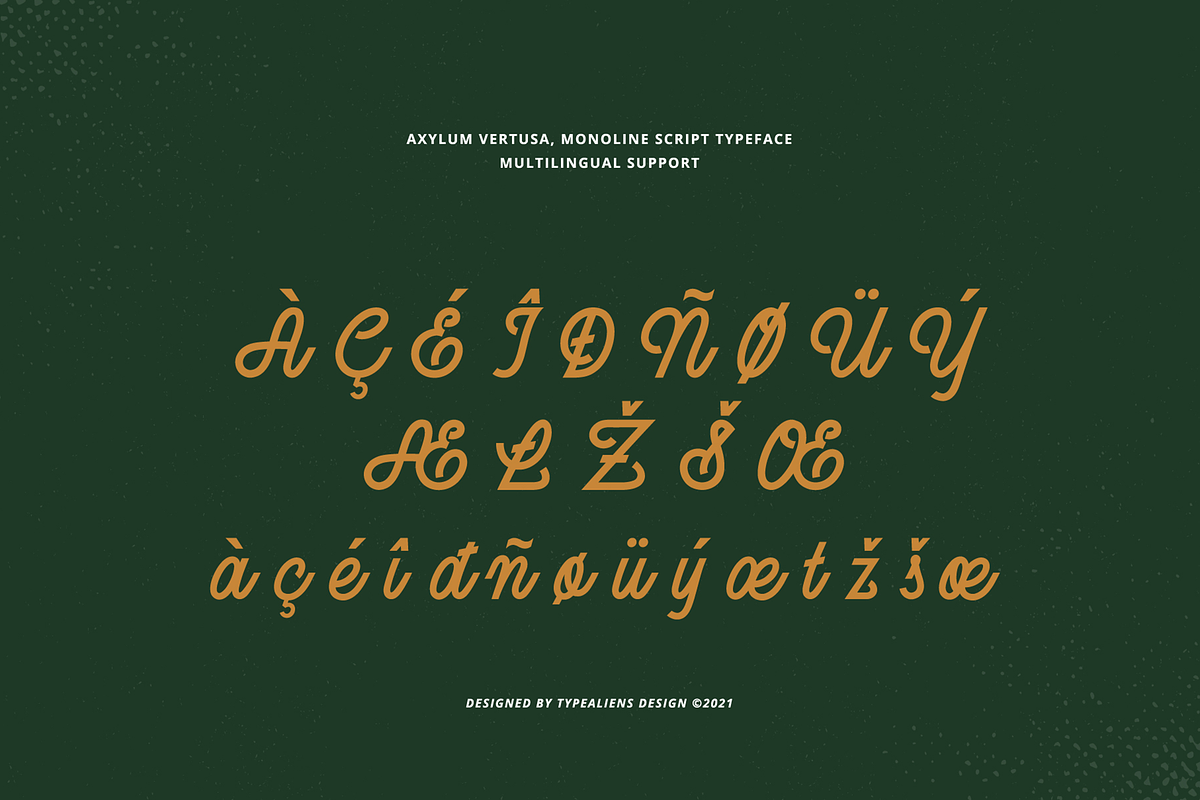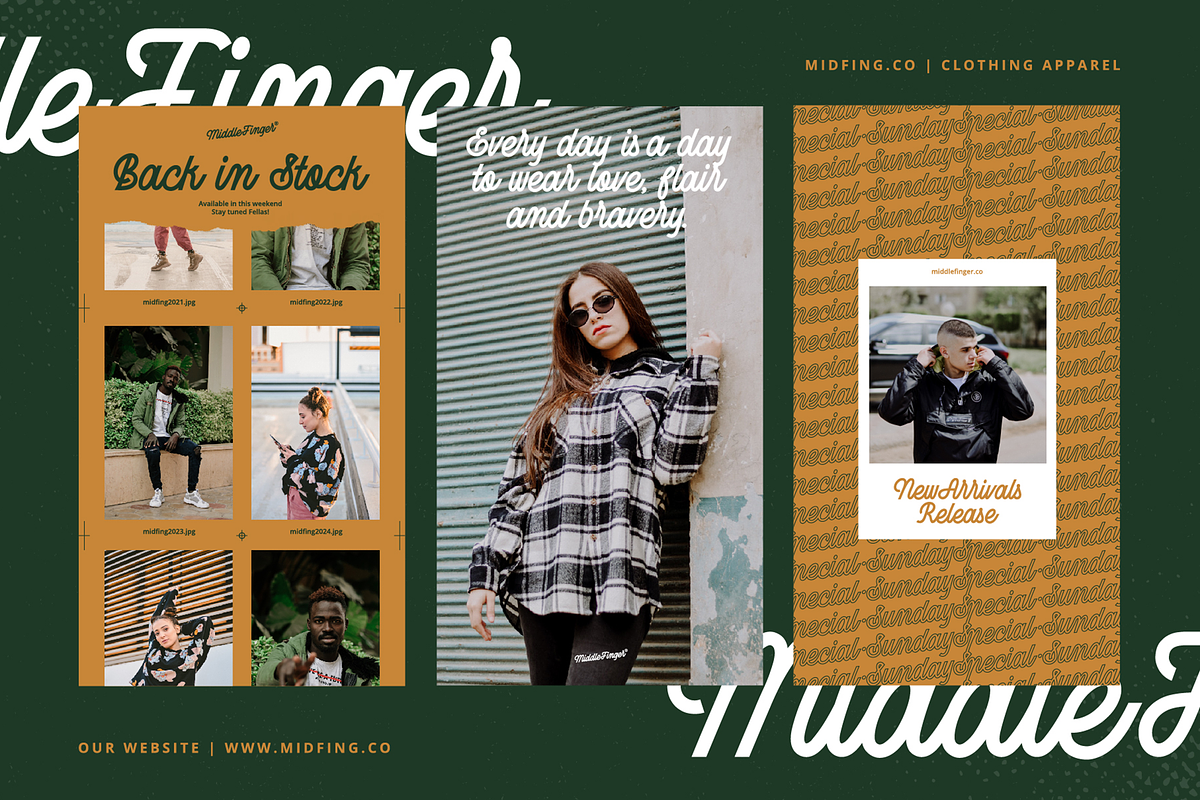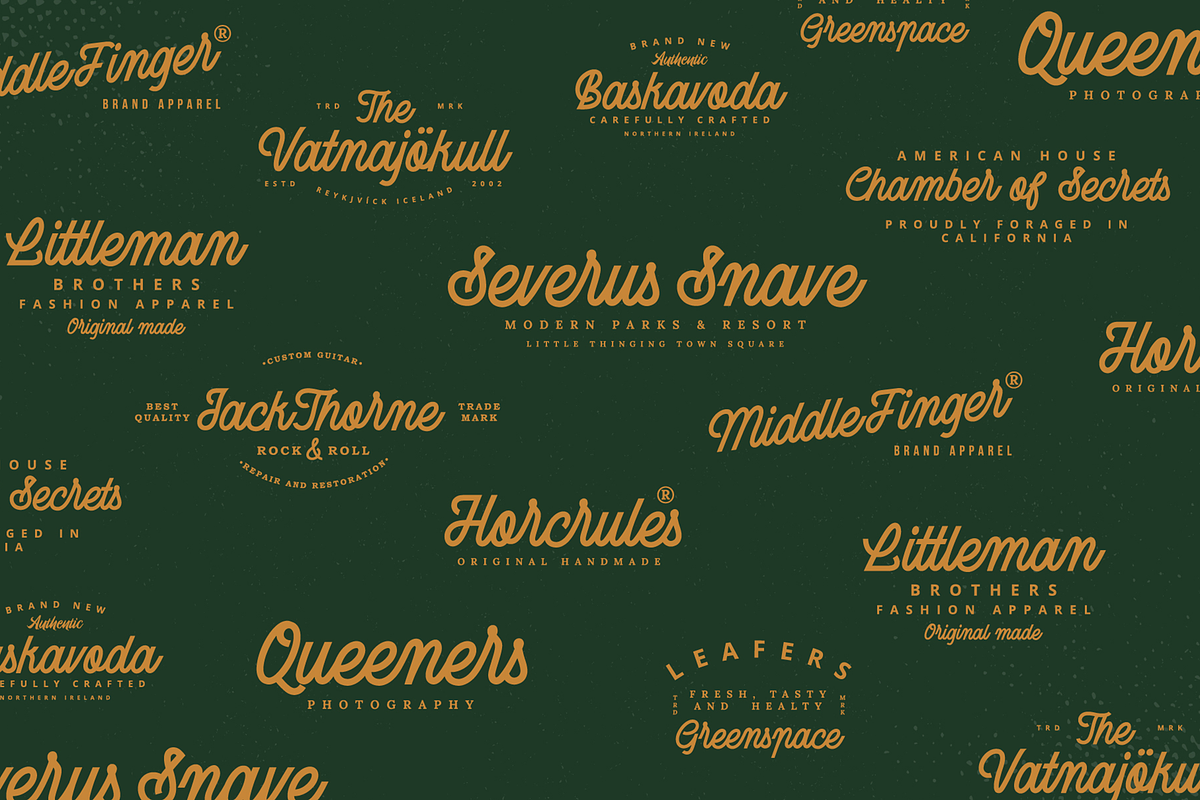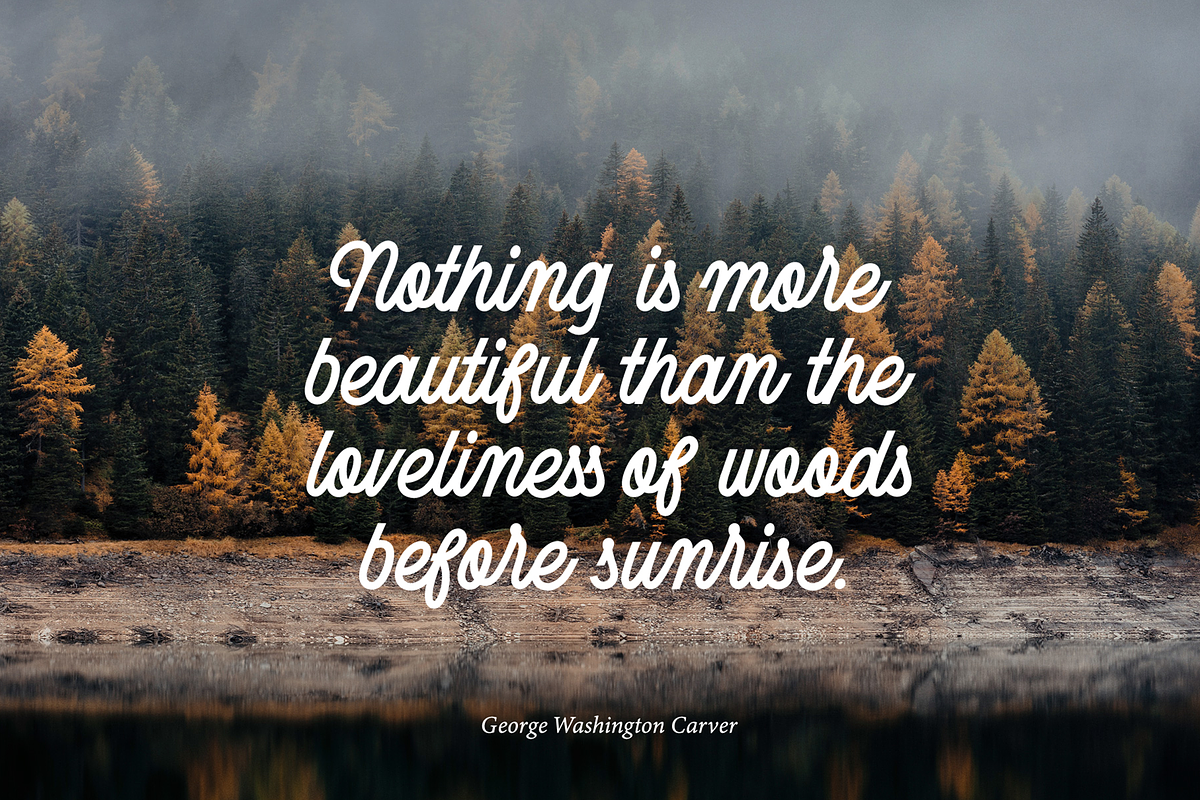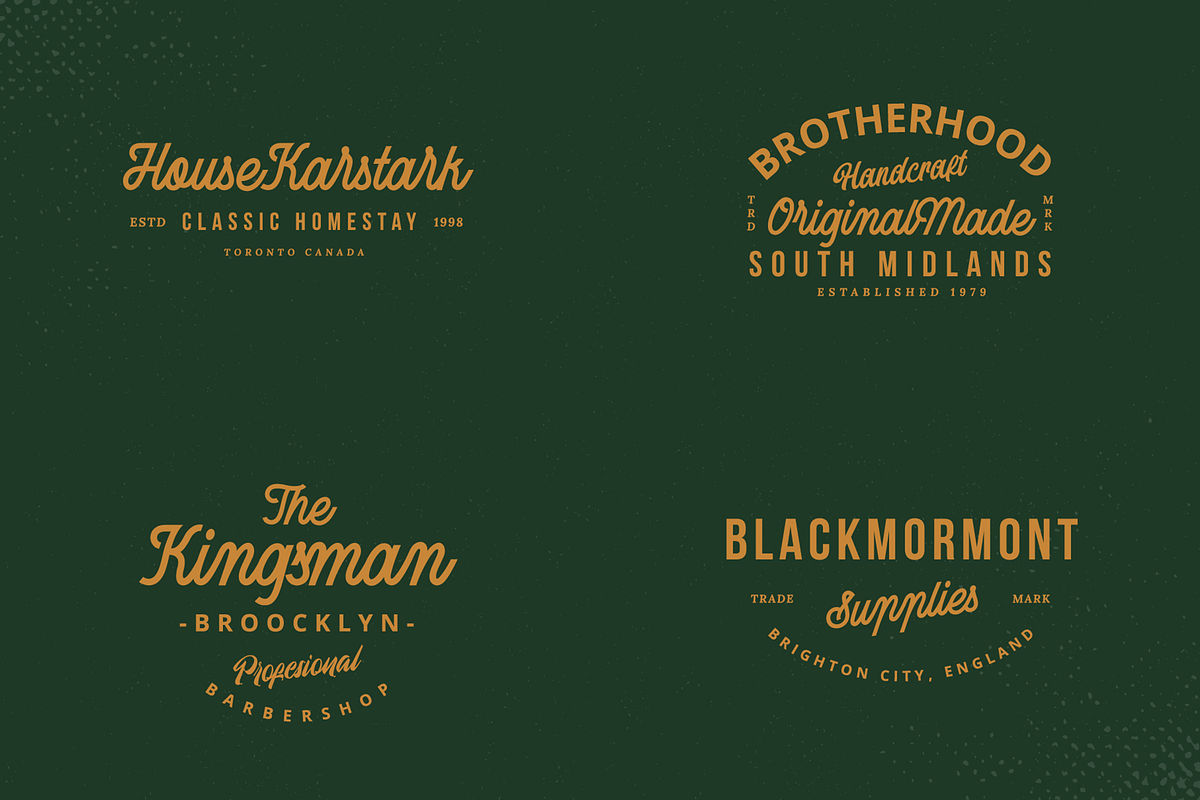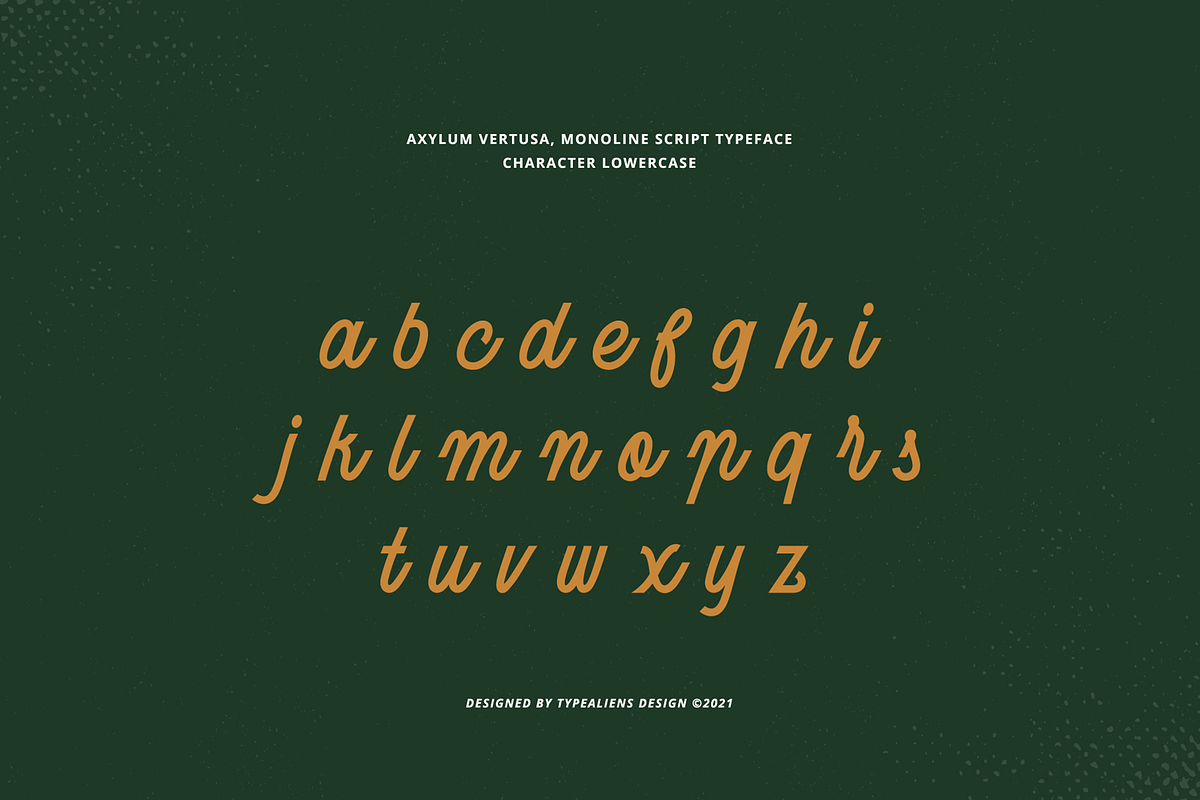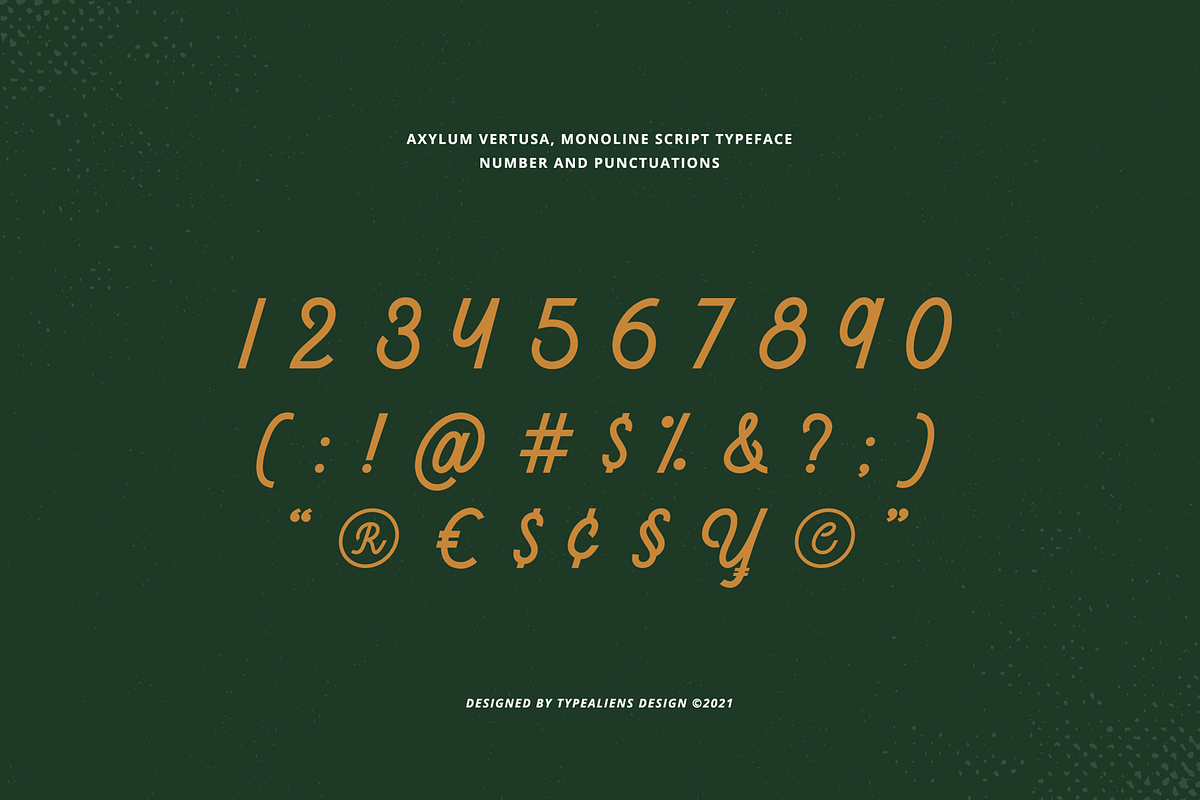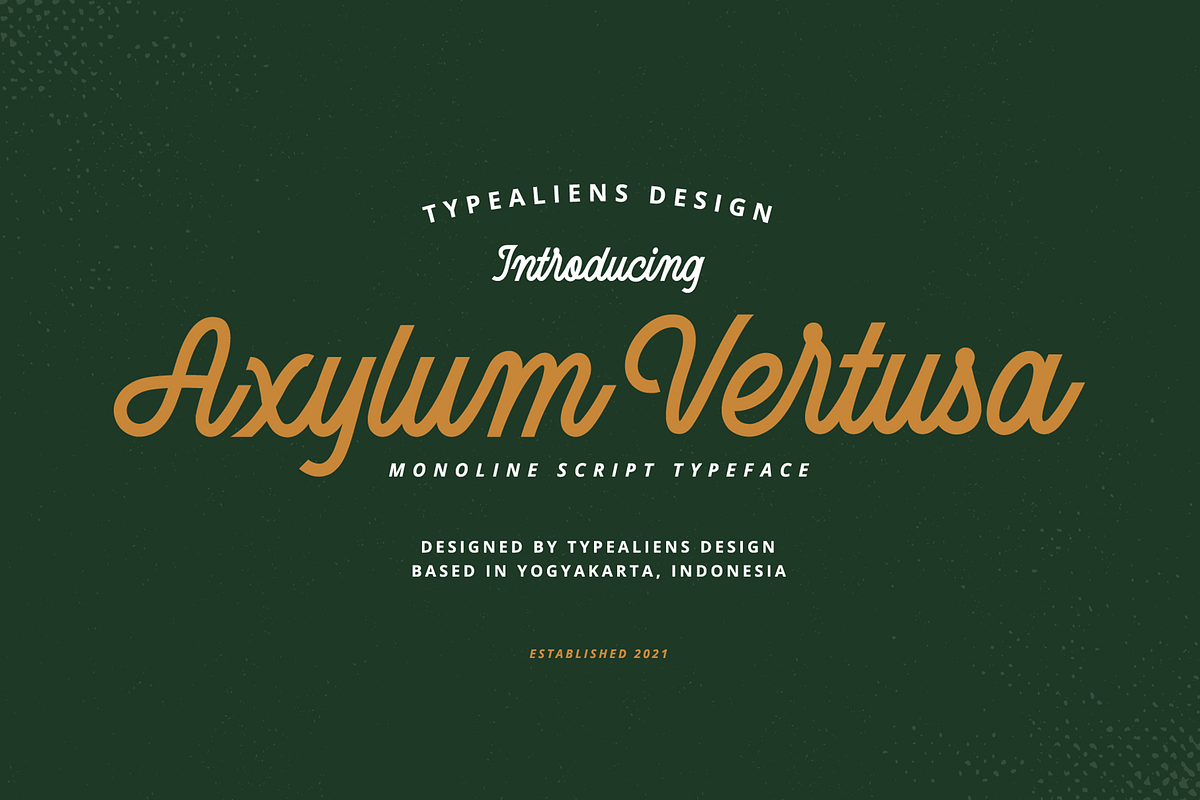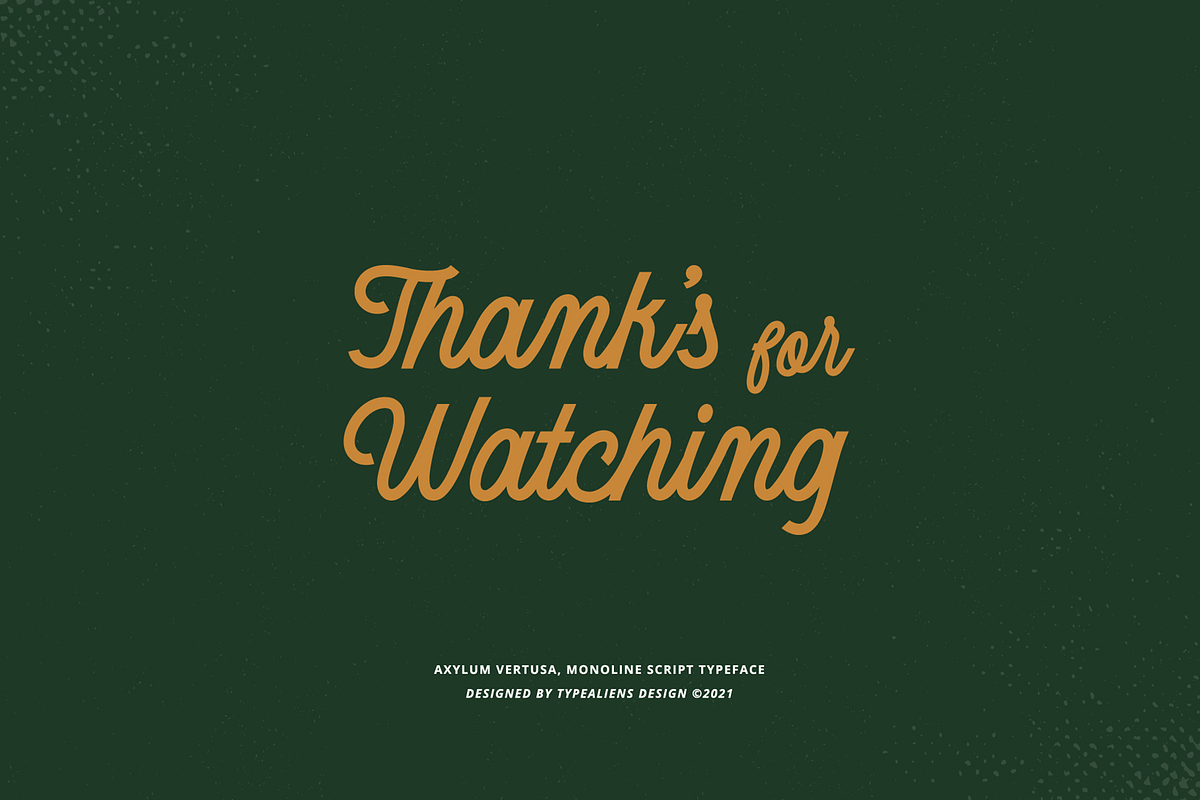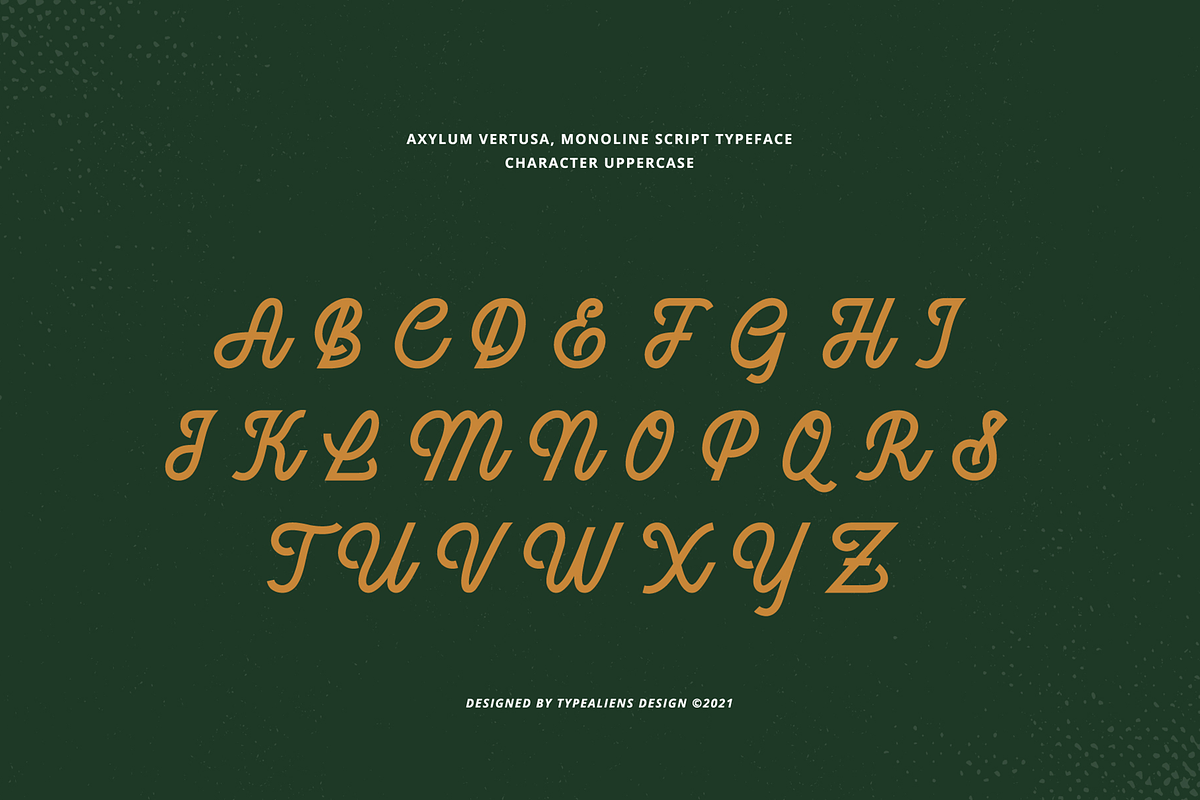
Axylum Vertusa
AXYLUM VERTUSA
Axylum Vertusa is a clean monoline font, because it is modern, this font is perfect for social media designs, logotypes, etc.